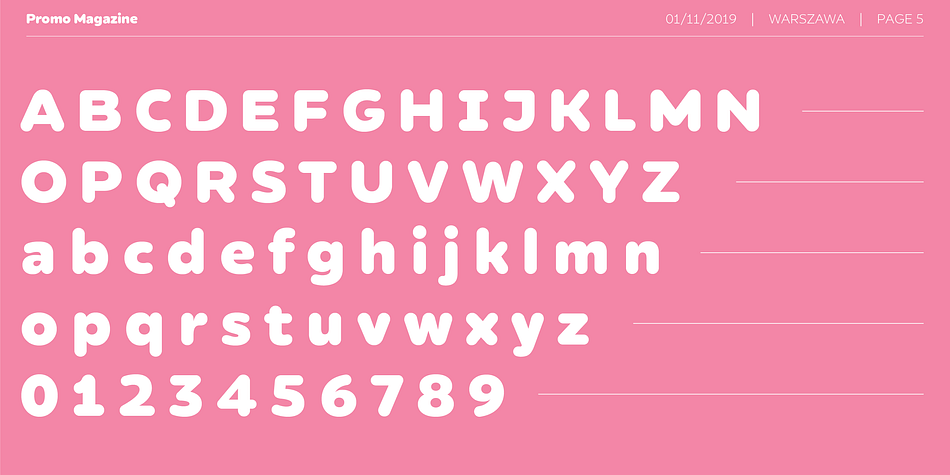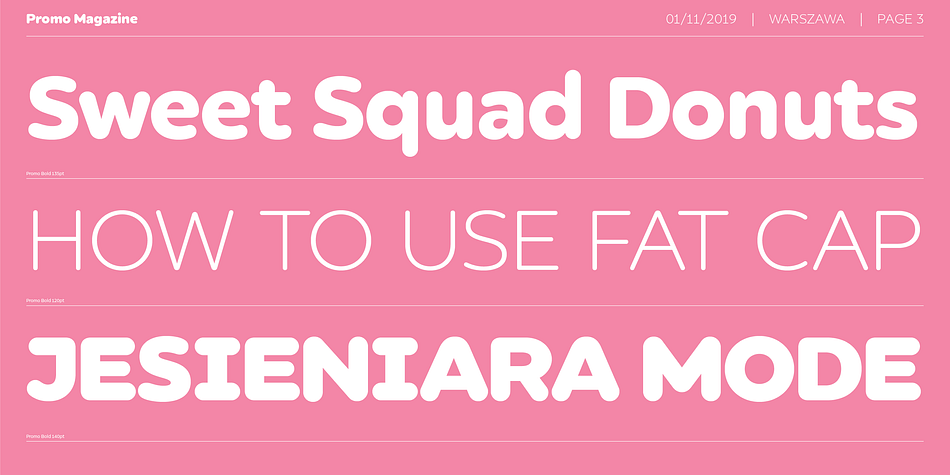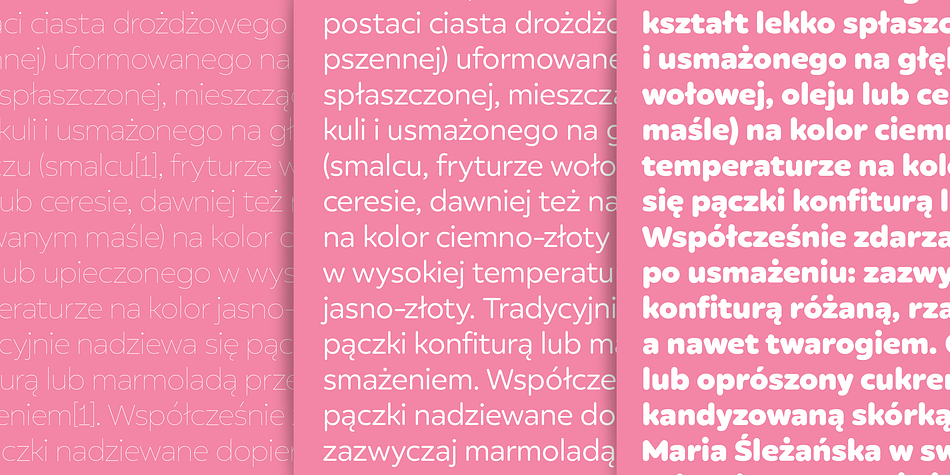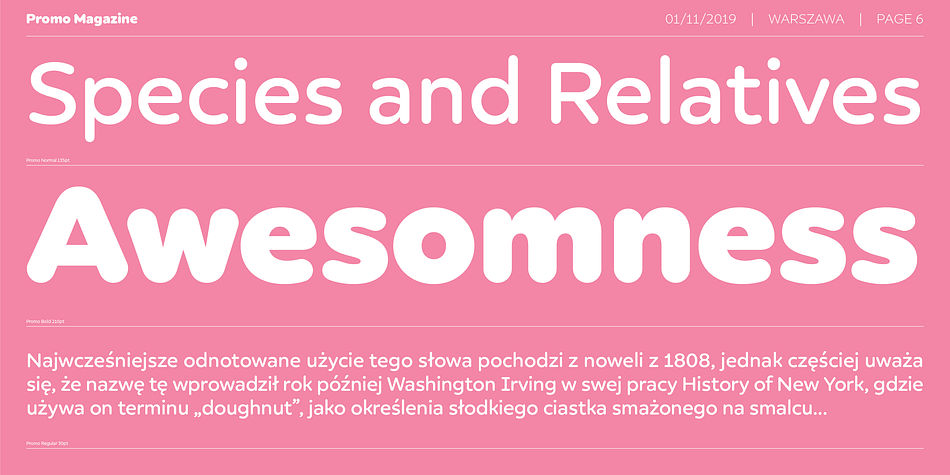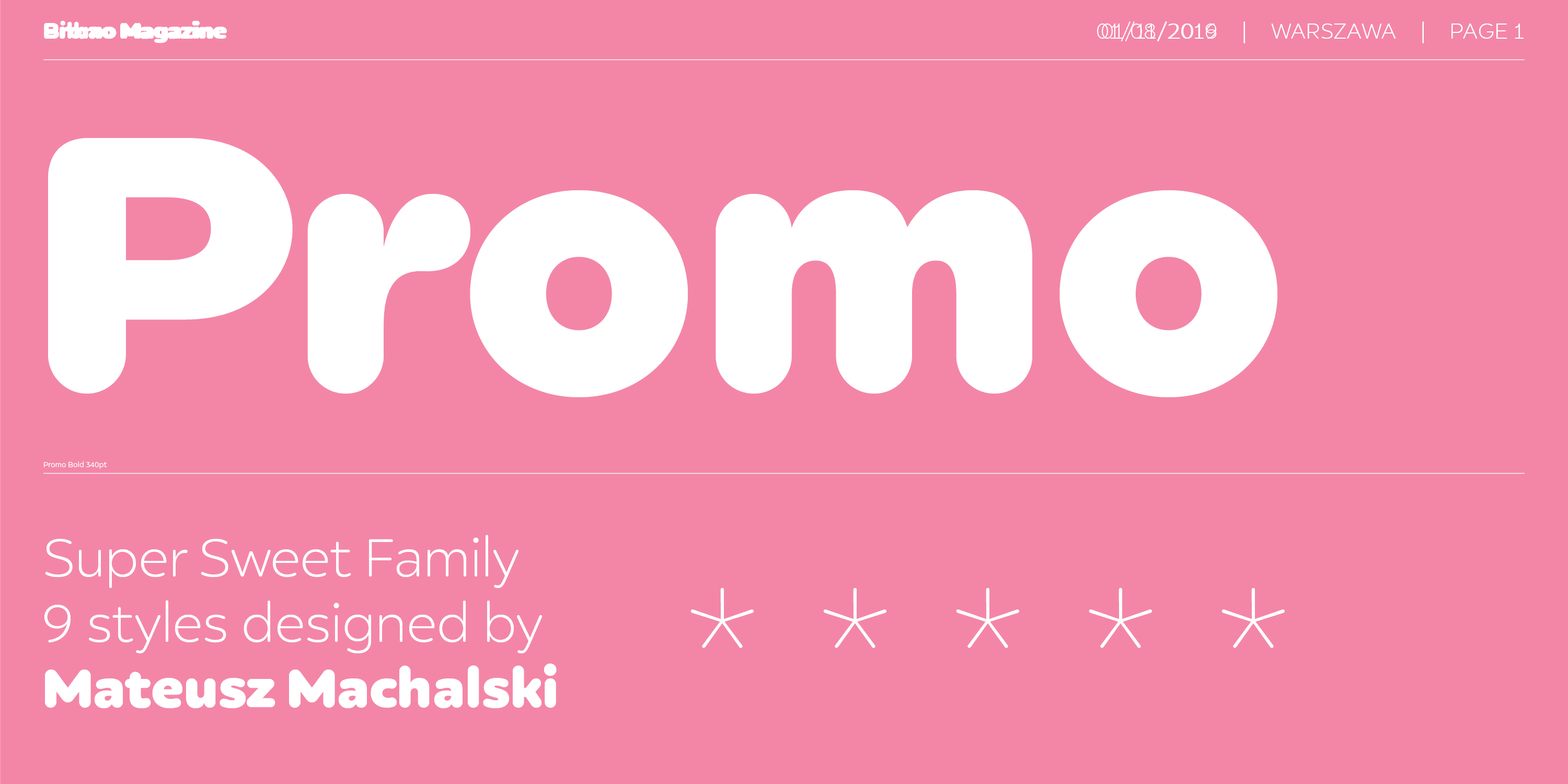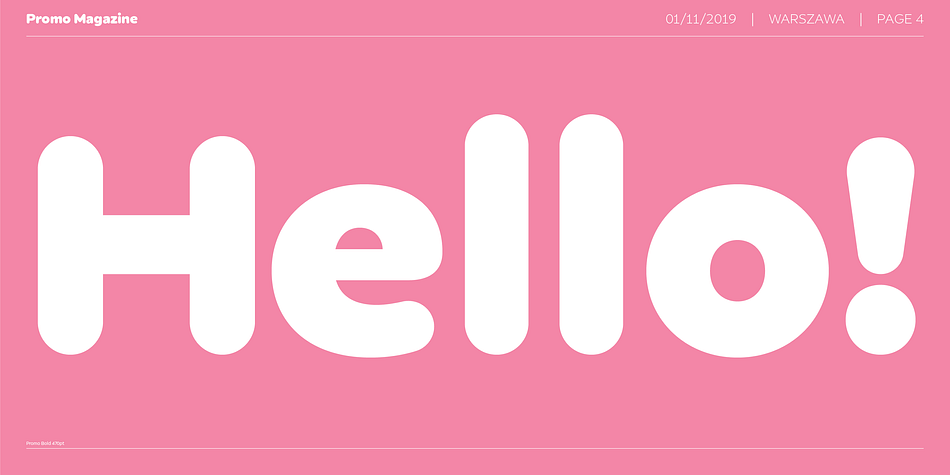
Promo
Designed by Mateusz Machalski, Promo is a sans serif font family. This typeface has nine styles and was published by BORUTTA.
Promo is charming rounded sans family. This typeface is defined by multiple features, which give it a friendly feeling. Promo is perfect for branding and display purposes. Entire family consist of 9 styles with italics from Thin to Bold.
Designer Mateusz Machalski